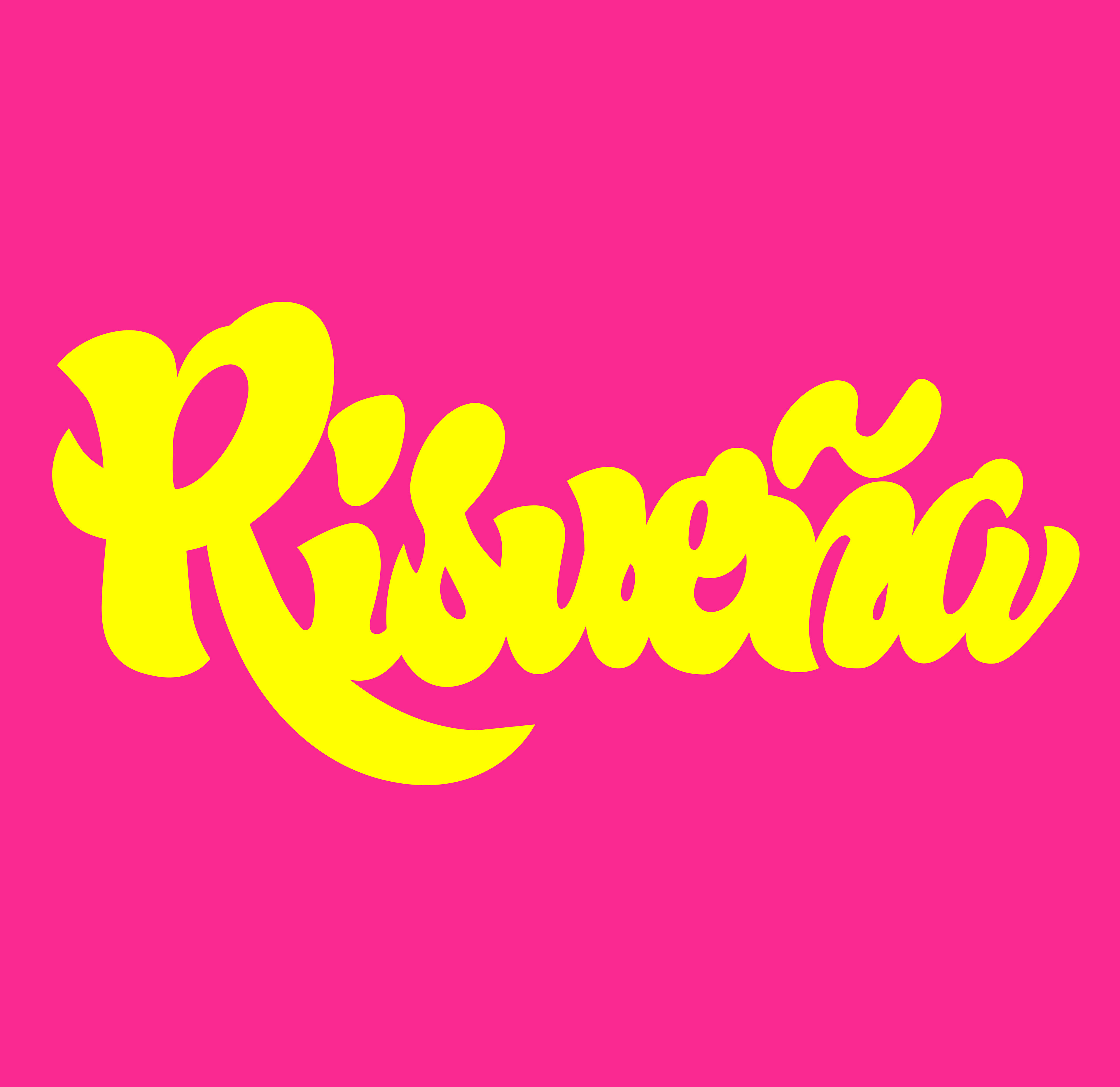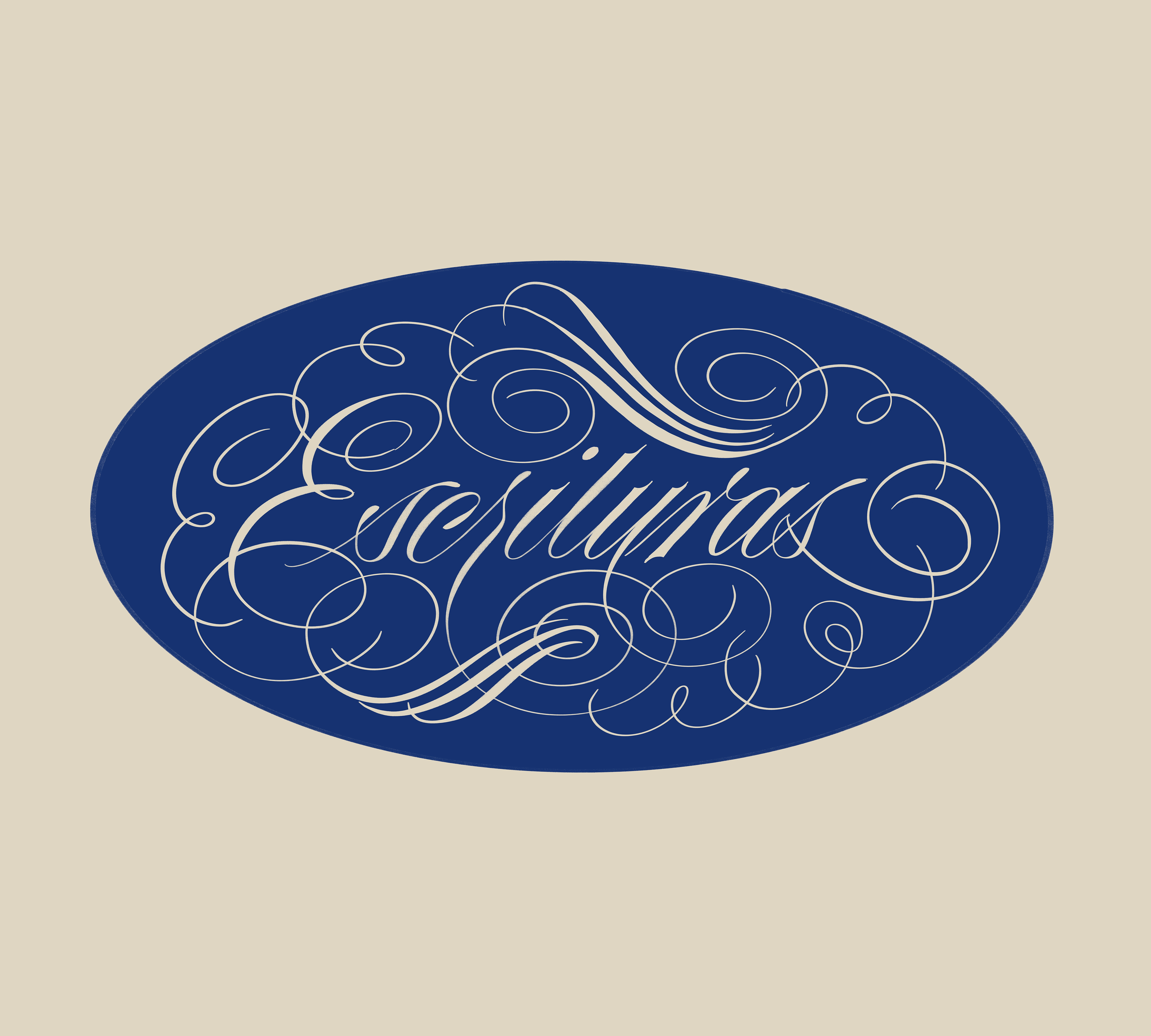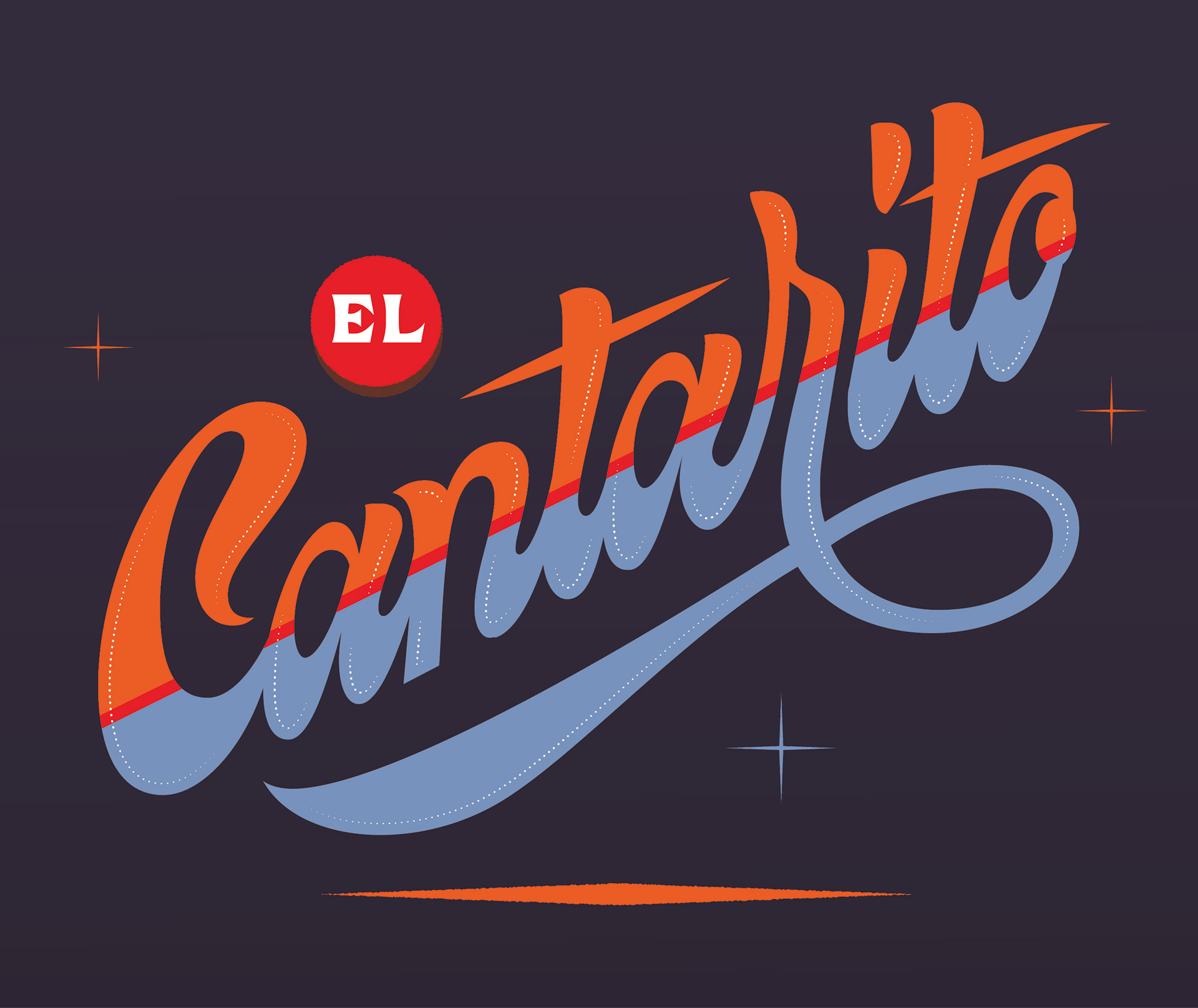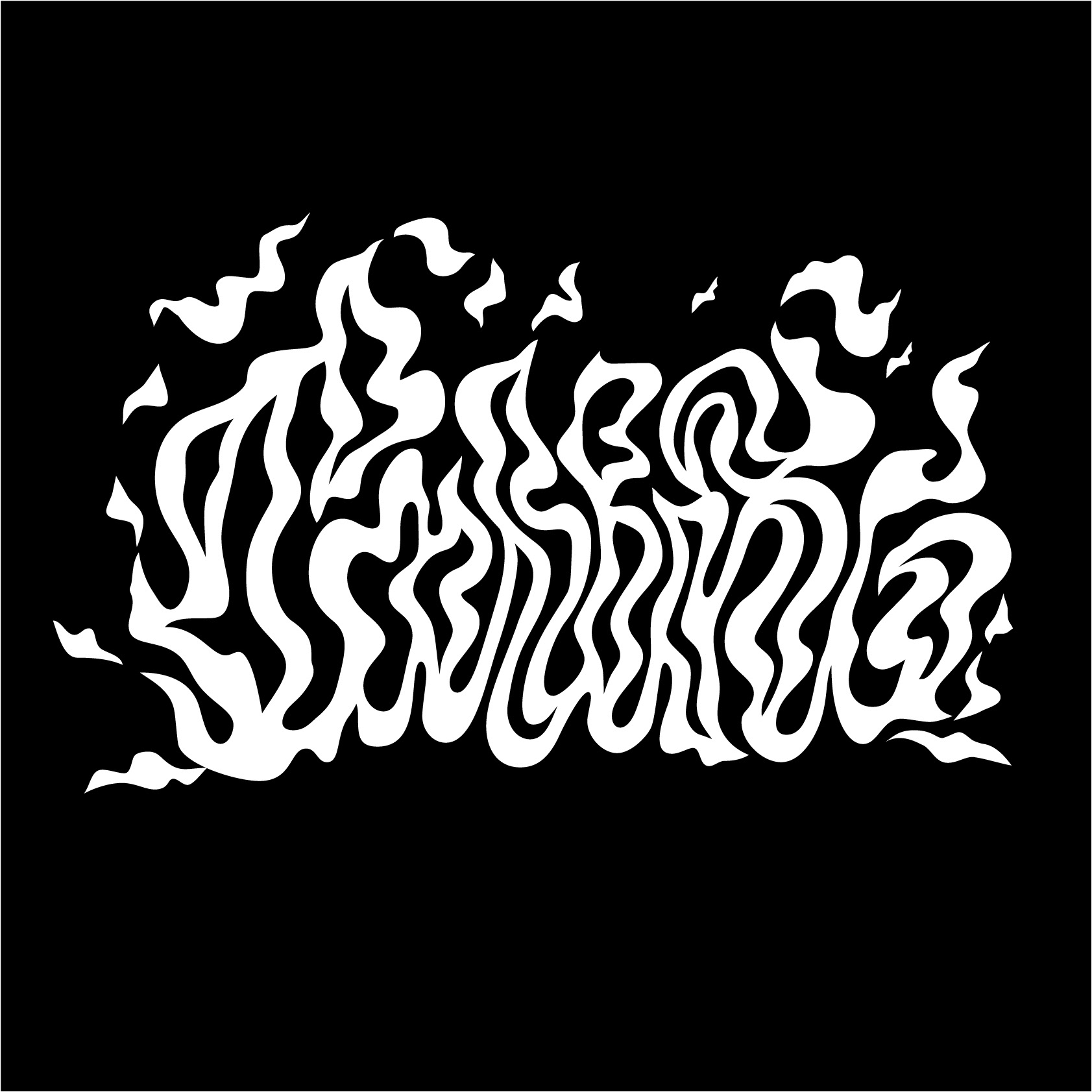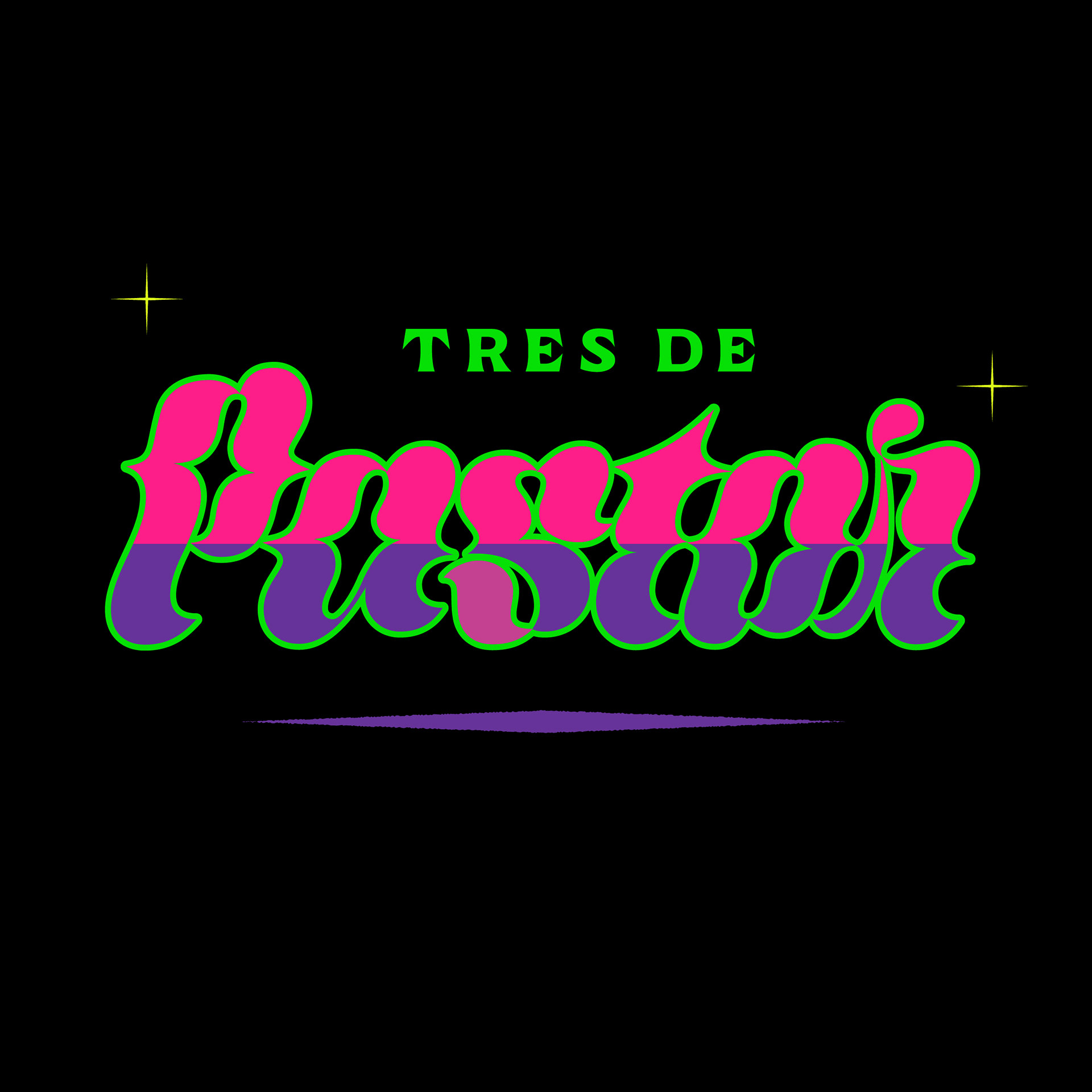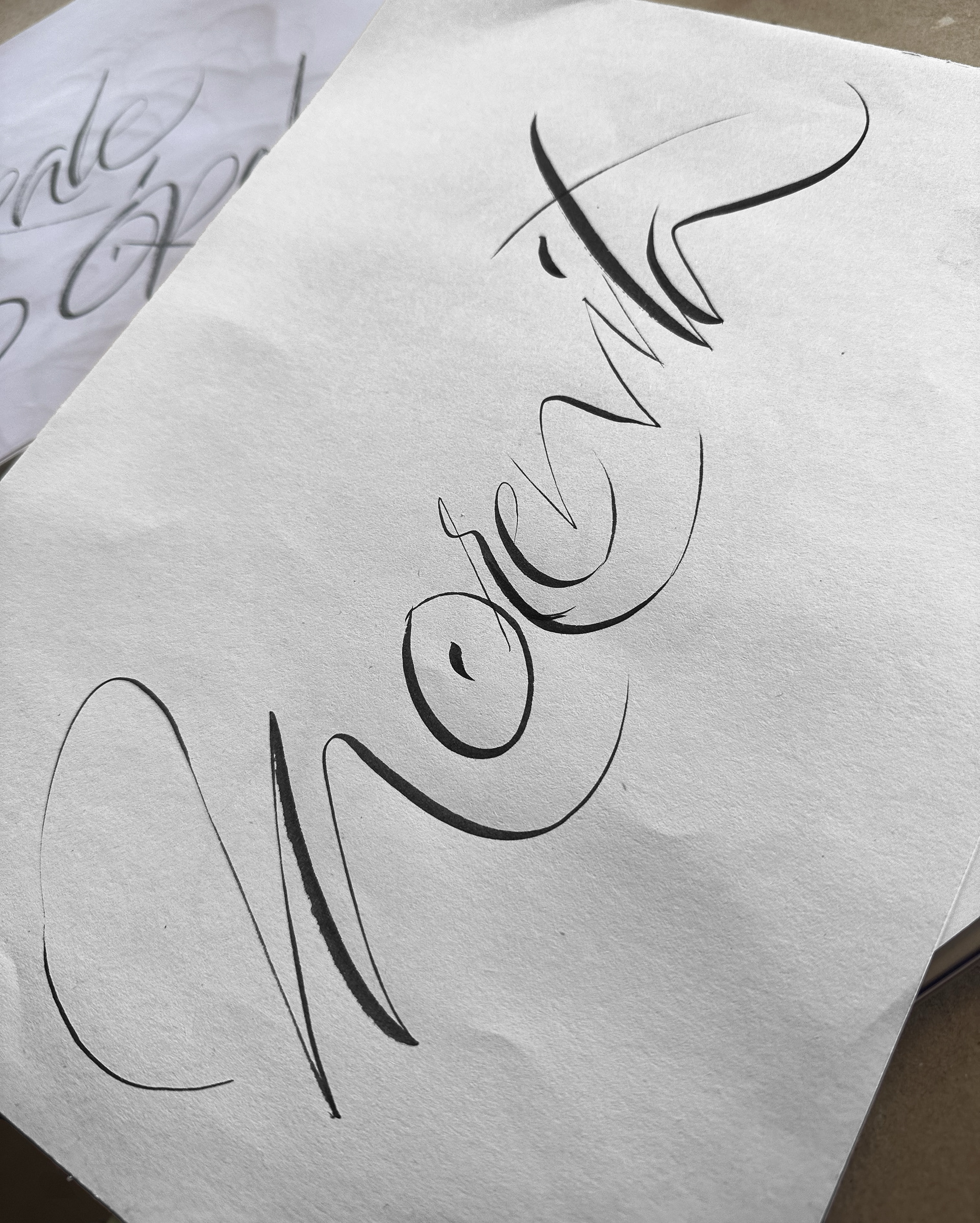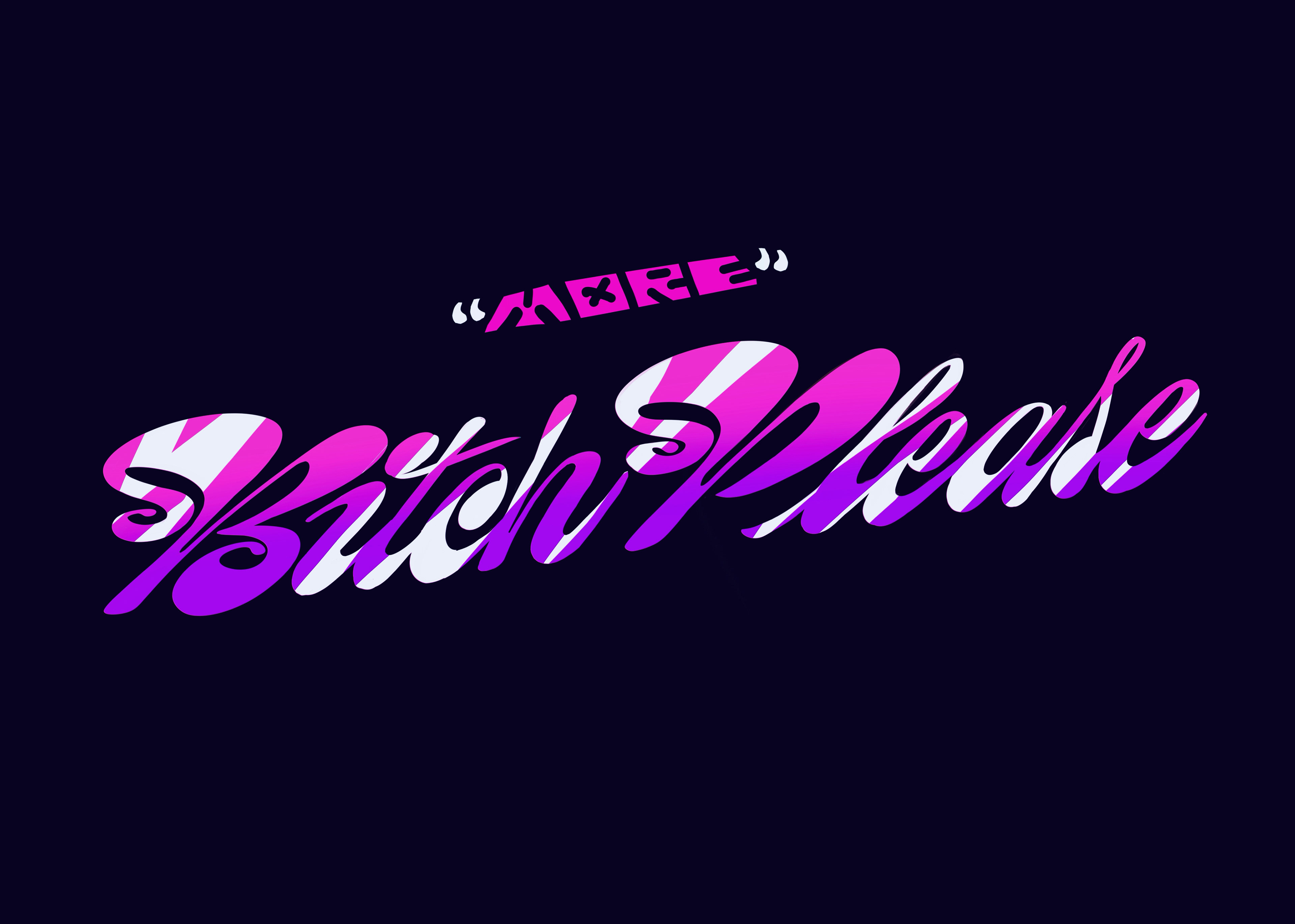
Variable design based on a modern calligraphy exercise completed during Maximiliano Sproviero’s workshop in Mexico City.
Calligraphic ornament design created during the workshop at Tipografía México in Puebla.
Personal practice